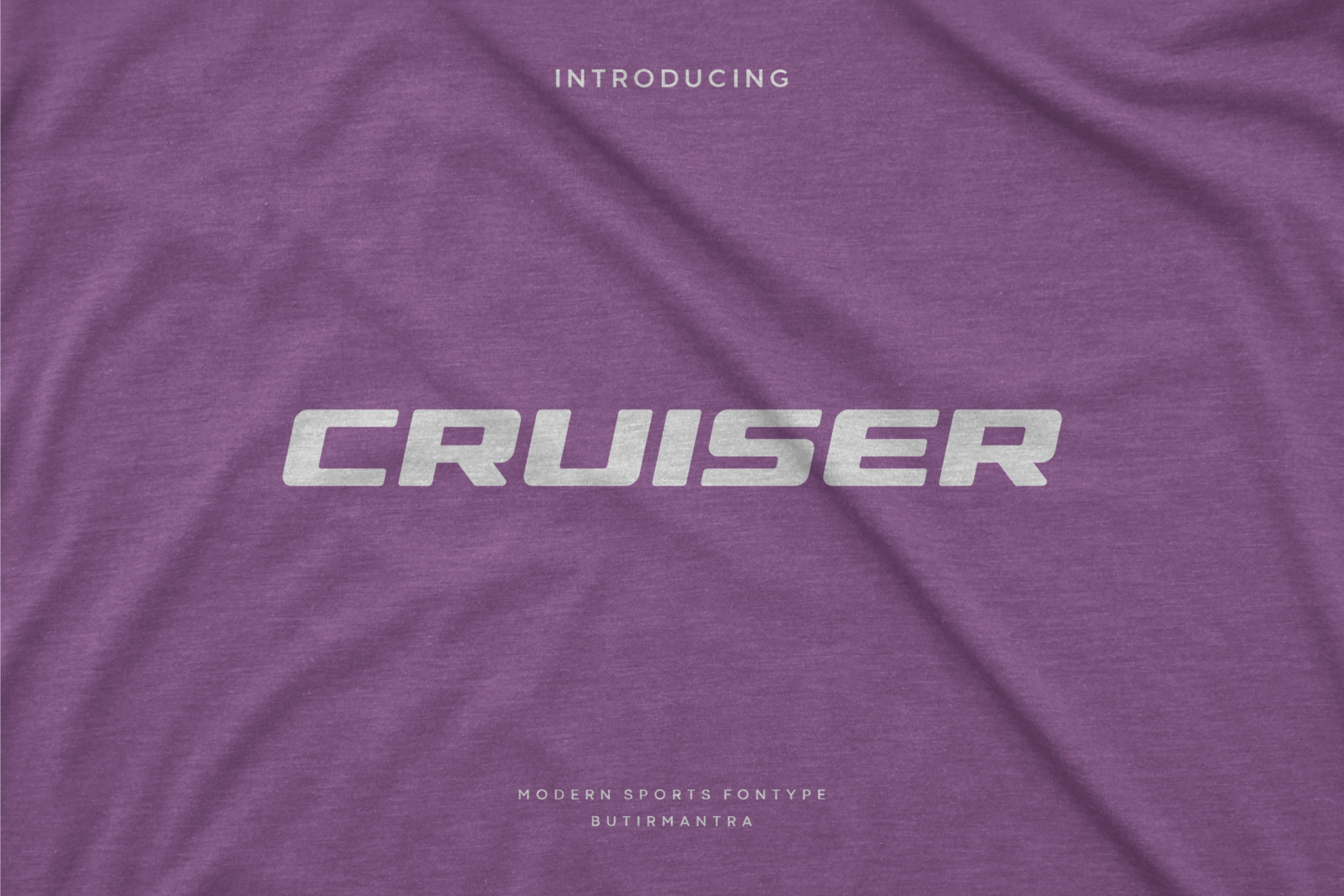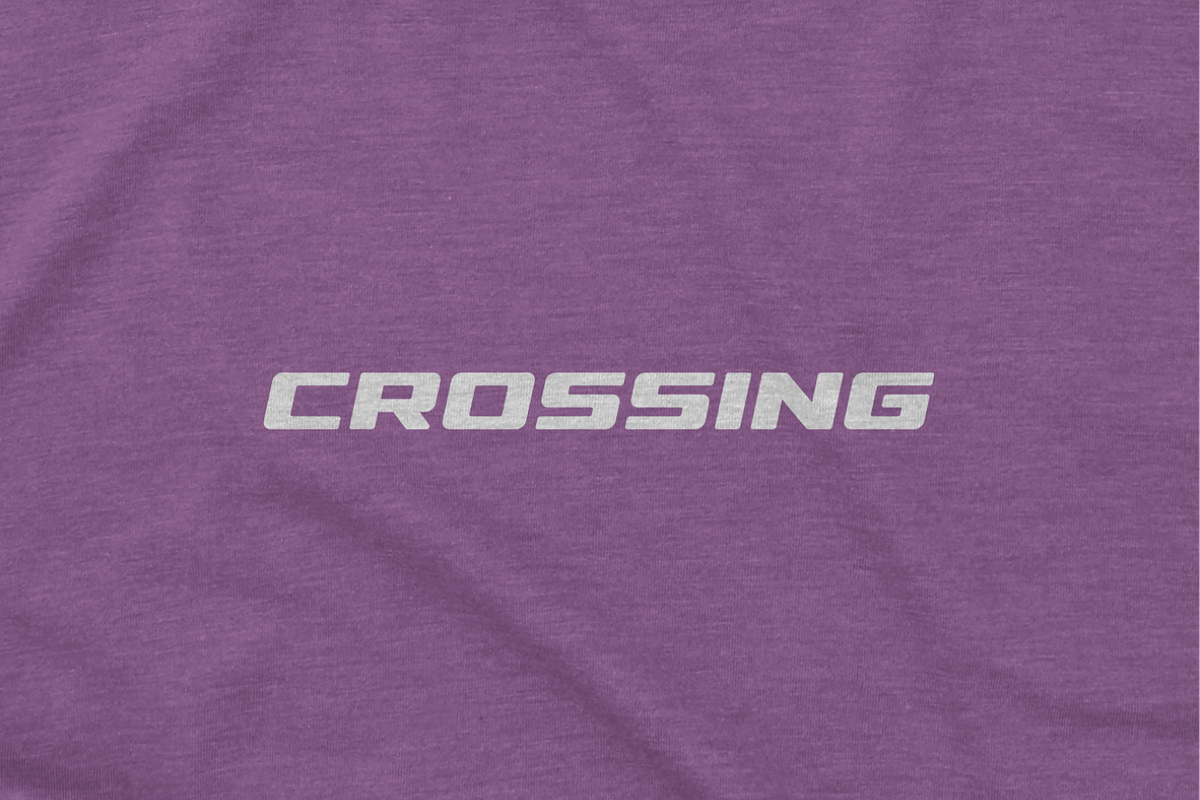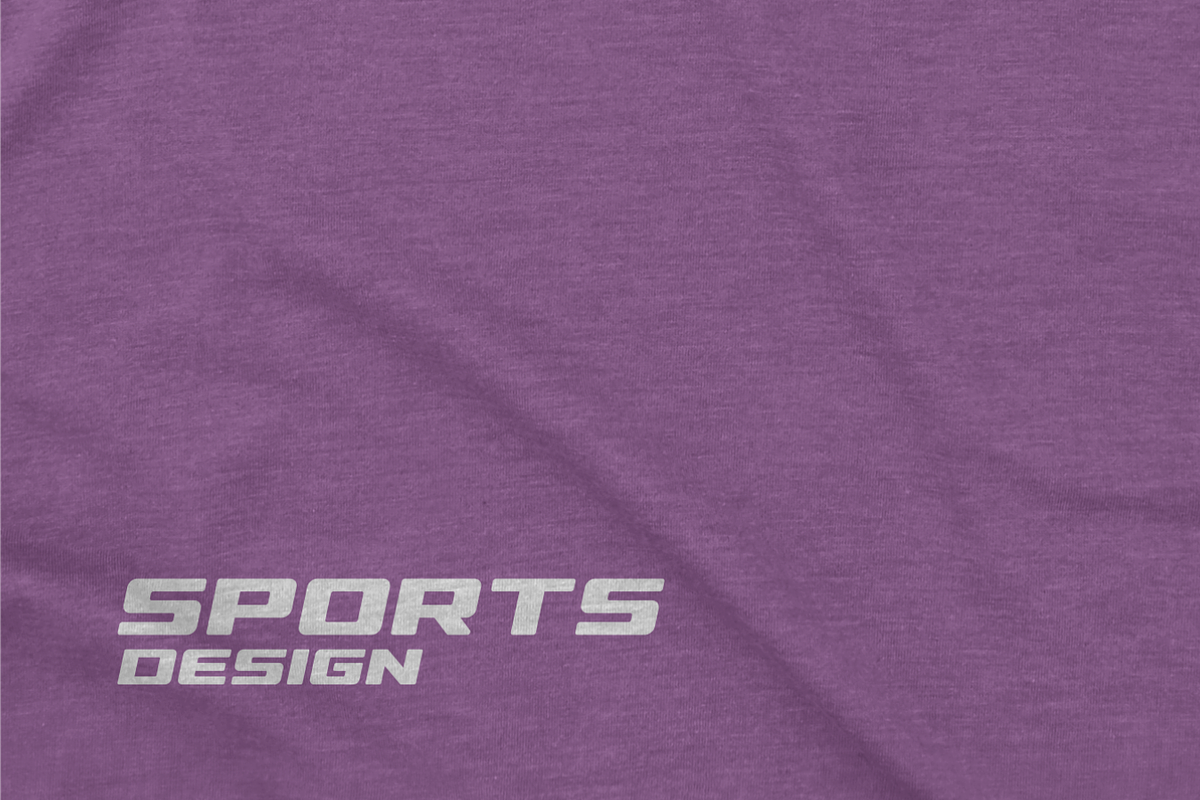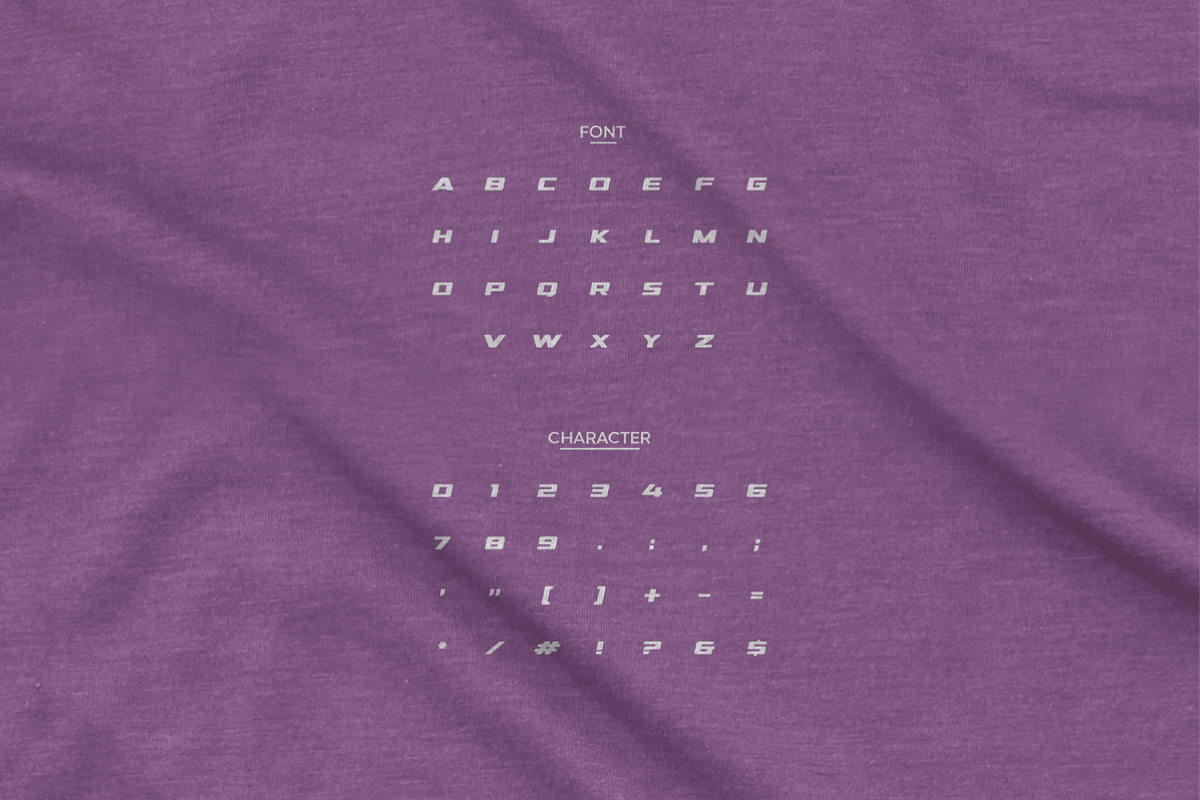
Cruiser - Modern Sport Typeface
Cruiser an awesome sports font, ideal for fast car racing sports titles, running matches, cycling, automotive game logos and monograms or other modern dynamic text. Cruiser compare favorably with legibility and size, creating the effect of power and speed. Designed as a fast and dynamic font, but with a slightly different font design, check it out and grab it right away.
- Punctuation & Number